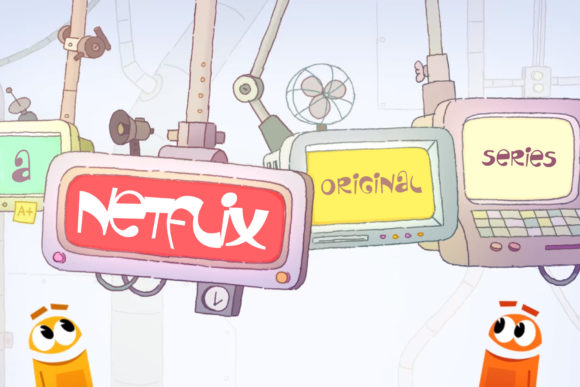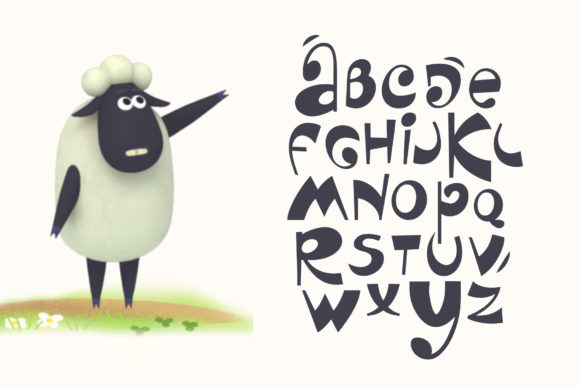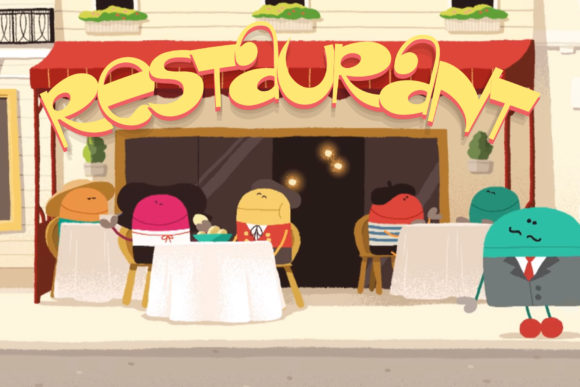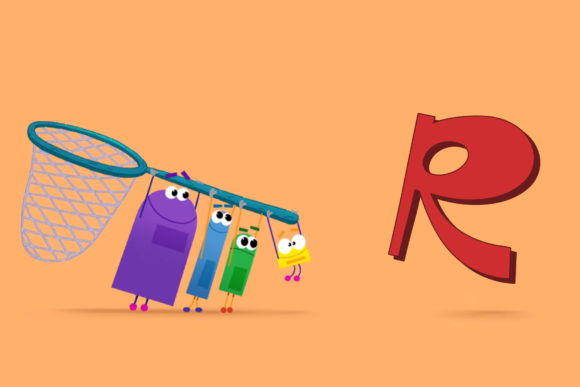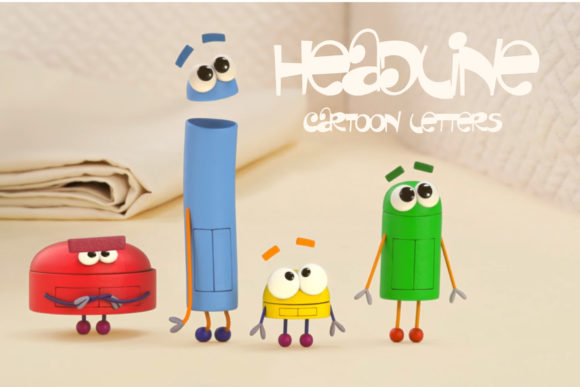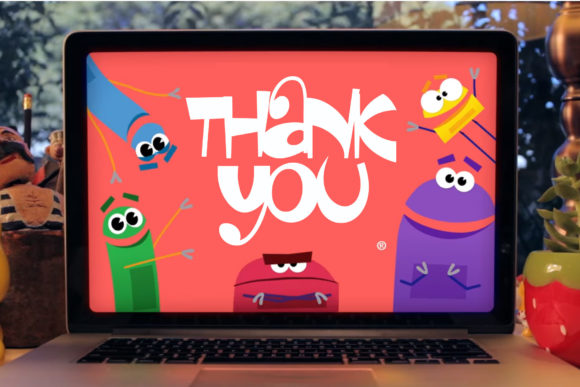
Bringing Your Designs to Life with Cartoon Font
Have you ever stared at a blank page, waiting for that perfect font to bring your creative vision to life? That’s exactly where the magic happens – and for many designers, it starts with the right font. Cartoon Font is more than just a quirky display font – it’s a key to unlocking the whimsy and personality in your designs.
With its fun, friendly feel, Cartoon Font is perfect for logotype, headlines, and brand identities. Whether you’re working on a corporate project, a music album, or a YouTube video, this versatile font is sure to add a touch of charm and character. As a designer, you know how valuable it is to have a font that can convey your message with ease and personality – and Cartoon Font delivers just that.
Key Features of Cartoon Font
- Font Style: Cartoon Font is a sans-serif, informal font designed to resemble hand-drawn characters, often used in children’s media, comics, and cartoons.
- Unique Characteristics: Cartoon Font features exaggerated and stylized letterforms, with distinctive rounded edges, smooth curves, and playful flourishes, making it easily recognizable and memorable.
- Customization Options: Cartoon Font often includes various OpenType features, such as ligatures, swashes, and contextual alternates, allowing designers to customize and personalize the font to suit their specific needs.
Designer Review: Cartoon Font
Overall, I think the Cartoon Font is a fun and playful typeface. ✨ It’s great for adding a lighthearted touch to designs, especially for children’s products or advertising campaigns.
Here are some of its strengths:
- Expressive and whimsical characters
- Perfect for creating a childlike or nostalgic feel
- Wide range of weights and styles to choose from
However, there are some limitations to keep in mind:
- May not be suitable for formal or professional designs
- Some characters may not be as detailed or precise as other fonts
- Not ideal for small text sizes, as it can become difficult to read
- May not be compatible with all operating systems or devices
In terms of overall impression, I would say that the Cartoon Font is a great choice for the right project. It’s a fun and creative typeface that can add a lot of personality to a design. Just be aware of its limitations and use it thoughtfully.
Tips for Getting the Most Out of Cartoon Font
For the best results, use Cartoon Font in conjunction with bright, bold colors and playful graphics. Experiment with different font styles and combinations to create a unique look.
Cartoon Font is perfect for:
- Children’s book covers and illustrations
- Comic strips and graphic novels
- Marketing materials for kids’ products and services
Alternative Font Options for Cartoon-Style Typography
Comic Sans
Comic Sans is a popular font that resembles handwritten text, often used in informal settings such as children’s books, newsletters, and social media posts. It’s a good alternative to Cartoon Font when you want to convey a playful, casual tone.
Comparison to Cartoon Font: Comic Sans is more informal and lacks the distinct cartoonish feel of Cartoon Font, but it’s easier to read and can be more versatile in its applications.
Pacifico is a script font with a relaxed, cursive feel that’s often used in headings and titles. It’s a good choice when you want to add a touch of whimsy and elegance to your design.